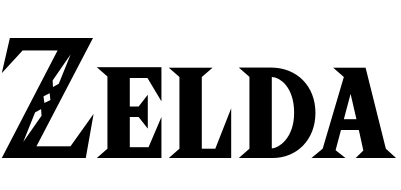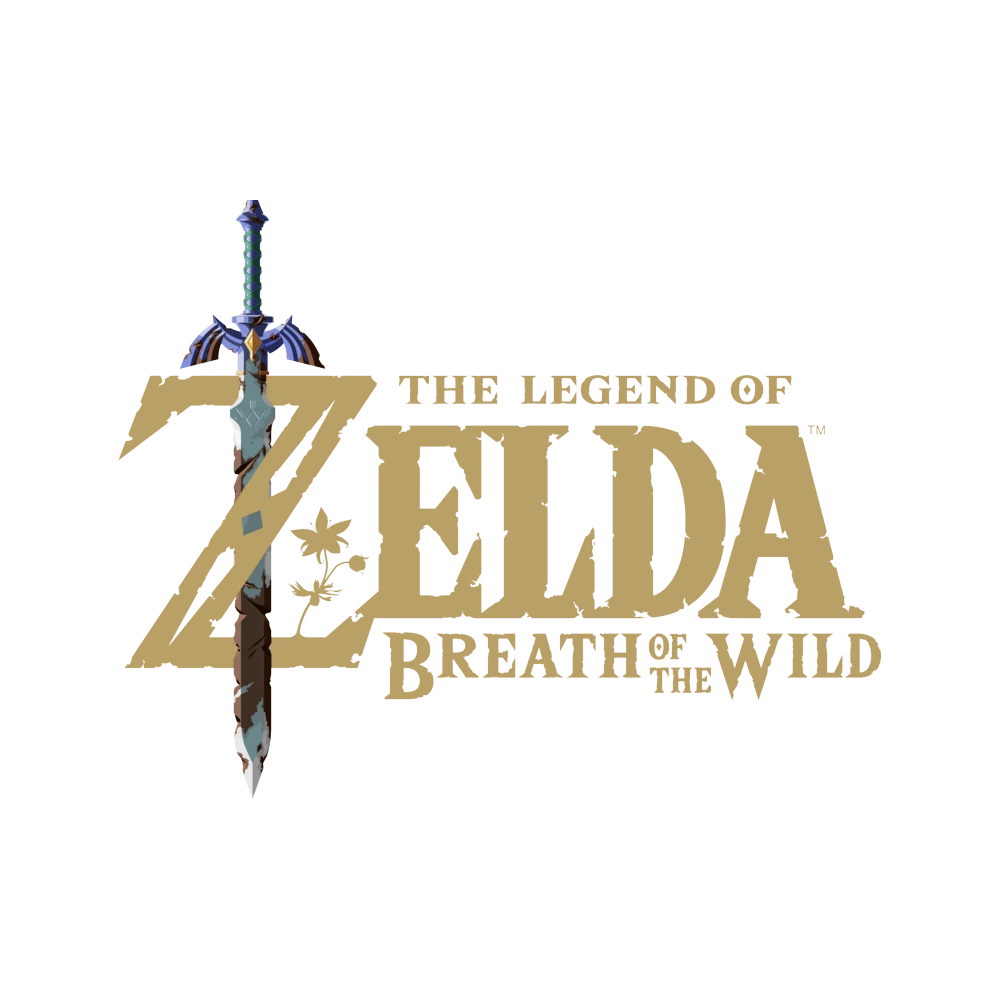
Zelda Font
AdventureThe Legend of Zelda is a popular video game series created by Nintendo, featuring adventures, puzzles, and combat in the fictional kingdom of Hyrule. Players control the hero Link, often on a quest to save Princess Zelda and defeat the evil Ganon.
The Breath of the Wild font was recreated as Hylia Serif by Artsy Omni. If you're looking for a more eroded version another great option is The Wild Breath of Zelda font by Chequered Ink.